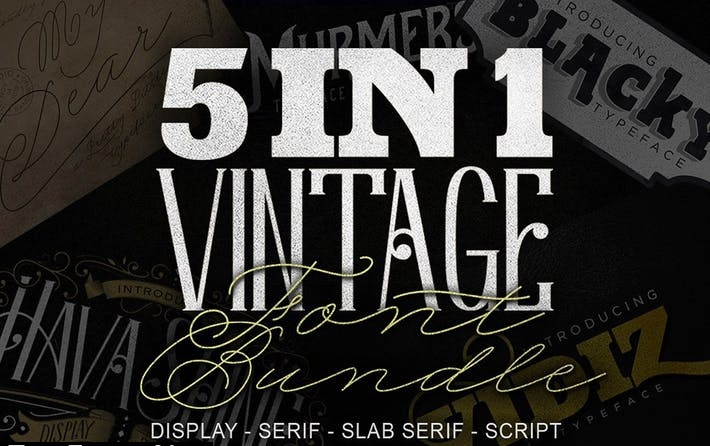
5 In 1 Vintage Font Bundle
Introducing the 5 In 1 Vintage Font Bundle, a carefully curated collection of five unique vintage-inspired typefaces. Each font is designed to evoke a sense of nostalgia and charm, perfect for various creative projects.
• Five distinct vintage font styles
• Multiple weights for versatile use
• Stylish and legible design
Ideal for branding, logos, posters, invitations, and any project that requires a touch of vintage flair.